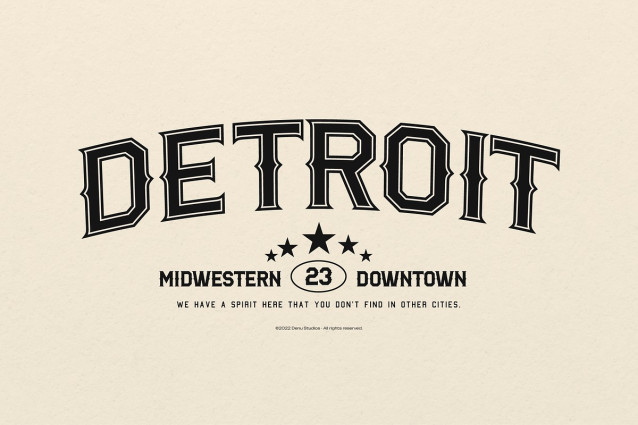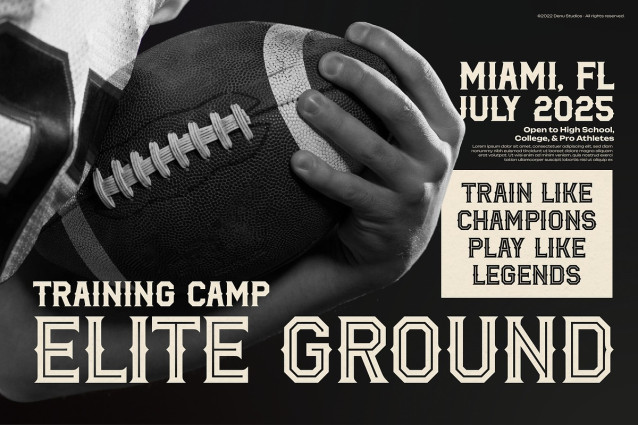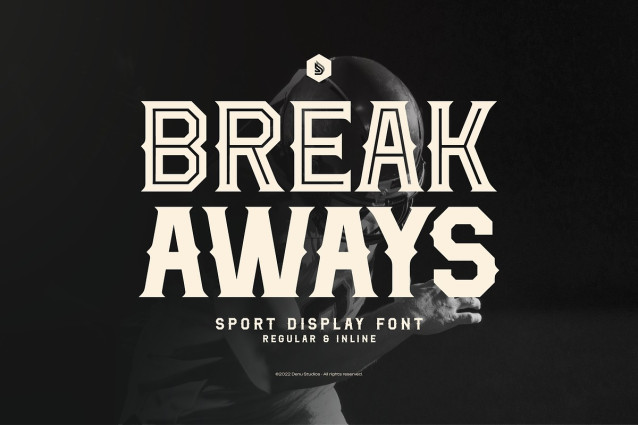
Break Aways Font
Break Aways Font | Sport Display Font, from Denustudios, suitable for any projects such as: logos, branding projects, homeware designs, product packaging, mugs, quotes, posters, shopping bags, t-shirts, book covers, name card, invitation cards, greeting cards, label, photography, watermark, special events, and all your other lovely projects that need a Sport Display Font taste.